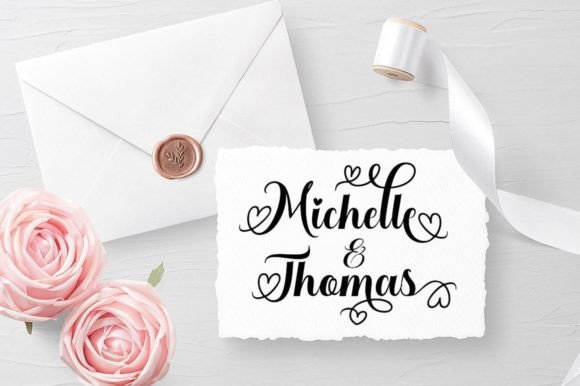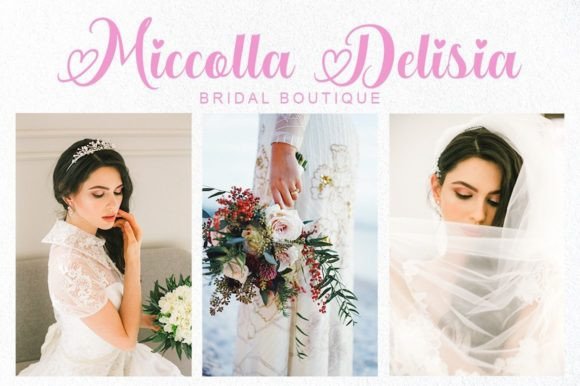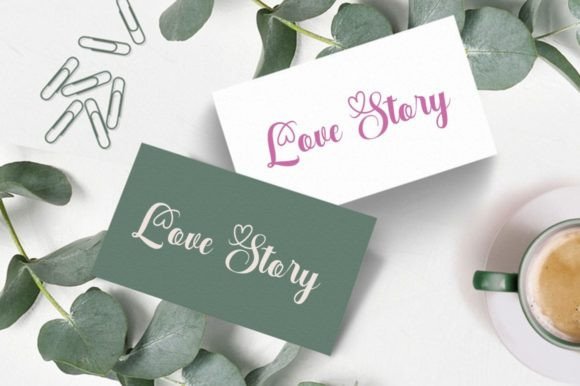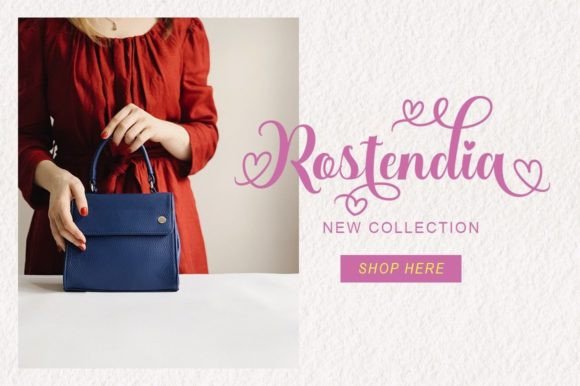
Introducing Angelica Font: The Perfect Handwritten Font for Designers and Crafters
Are you looking for a beautiful modern handwritten font to elevate your designs and add a personal touch? Look no further than Angelica Font! This stunning font is perfect for a wide range of design projects, from invitations and logos to branding, photography, and more. In this article, we’ll dive into the features and benefits of Angelica Font and explore how it can help take your designs to the next level.
A Beautiful Modern Handwritten Font
Angelica Font is a gorgeous modern handwritten font that exudes elegance and sophistication. Its flowing lines and delicate curves make it perfect for designs that require a personal and human touch. Whether you’re creating invitations, wedding designs, or product packaging, Angelica Font is sure to impress. Its versatility and flexibility make it an excellent choice for designers and crafters who want to add a unique and creative flair to their work.
Angelica Font is an incredibly versatile font that can be used for a wide range of design projects, including:
- Invitations: Create beautiful and elegant invitations for weddings, parties, and special events.
- Logos and Branding: Use Angelica Font to create stunning logos and branding materials that reflect your company’s personality and style.
- Photography: Add a personal touch to your photography with beautiful watermarks and captions.
- Advertising: Create eye-catching ads that stand out with Angelica Font’s unique and elegant style.
- Product Packaging: Elevate your product packaging with a beautiful and handwritten font that adds a personal touch.
- Social Media Posts: Use Angelica Font to create stunning social media posts that grab attention and engage your audience.
- Wedding Designs: Create beautiful wedding designs, including stationery, decorations, and more.
One of the best features of Angelica Font is that it’s PUA (Private Use Area) encoded. This means that you can access all of the glyphs and swashes with ease, giving you complete creative control over your designs. With Angelica Font, you can easily access a wide range of characters, including:
- Glyphs: Alternate characters and ligatures that add variety and interest to your designs.
- Swashes: Beautiful flourishes that can be used to add a decorative touch to your designs.
Angelica Font offers a range of benefits for designers and crafters, including:
- Ease of use: With its PUA encoding, Angelica Font is easy to use and access, even for designers who are new to handwritten fonts.
- Versatility: Angelica Font can be used for a wide range of design projects, making it a valuable addition to any design library.
- Unique style: Angelica Font’s unique and elegant style sets it apart from other handwritten fonts, making it perfect for designers who want to stand out.
- Time-saving: With Angelica Font, you can create stunning designs quickly and easily, saving you time and effort.